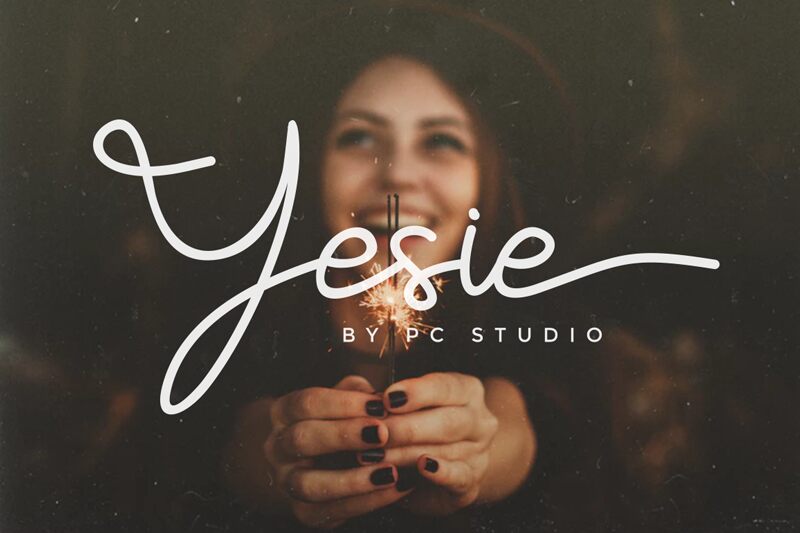
YesieRegular
Yesie, a creation by PutraCetol, is a handwritten font with a light weight that exudes charm and personality.
Its fluid, organic strokes and elegant simplicity evoke the warmth of personal correspondence, making it an excellent choice for invitations, branding, and editorial design. The delicate balance of its aesthetic appeal lies in its informal yet sophisticated style, which lends itself to a wide range of creative projects looking to add a human touch.
With Yesie's gentle curves and natural flow, designers can bring an authentic handcrafted feel to their work that is both inviting and visually engaging.